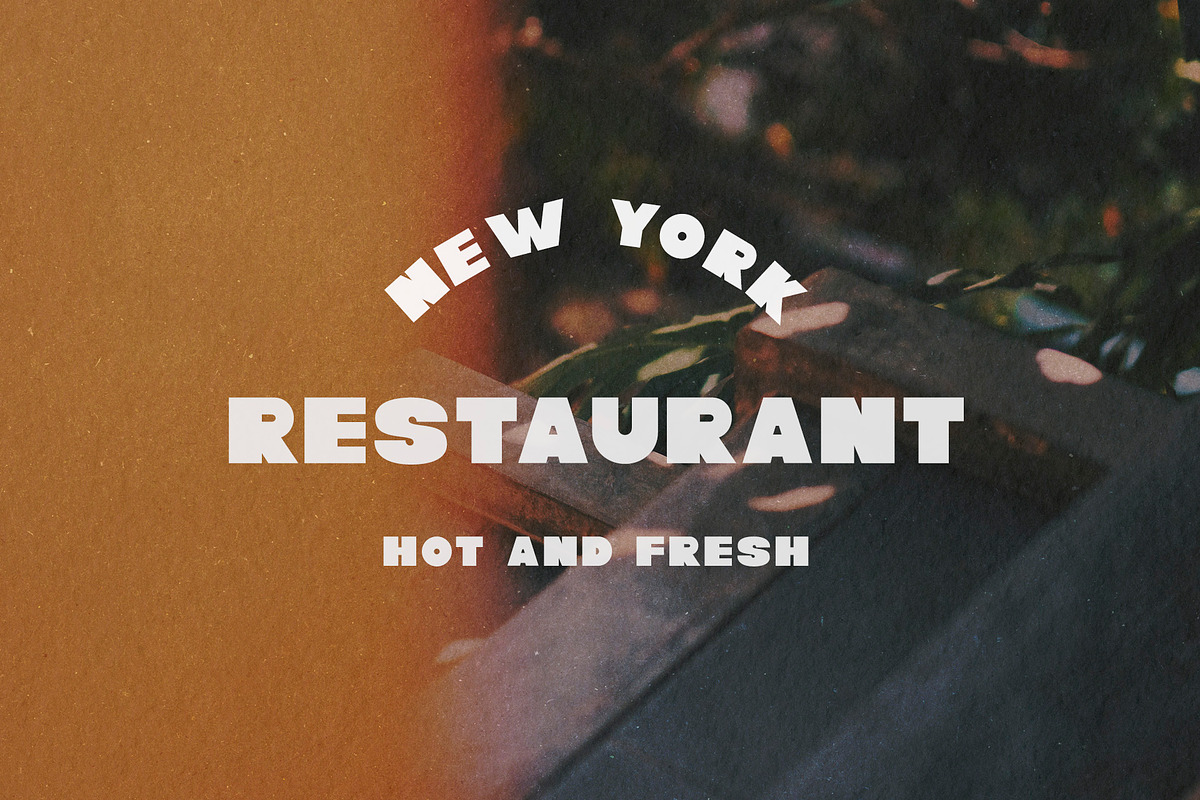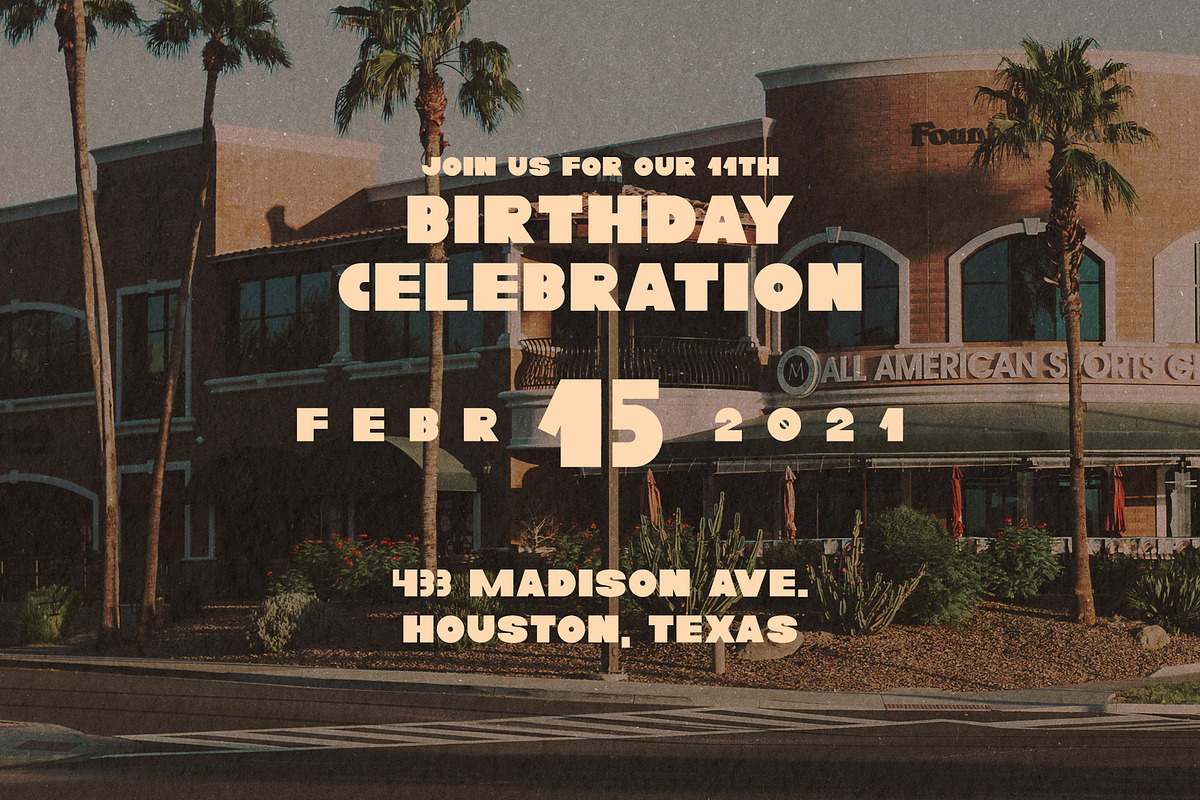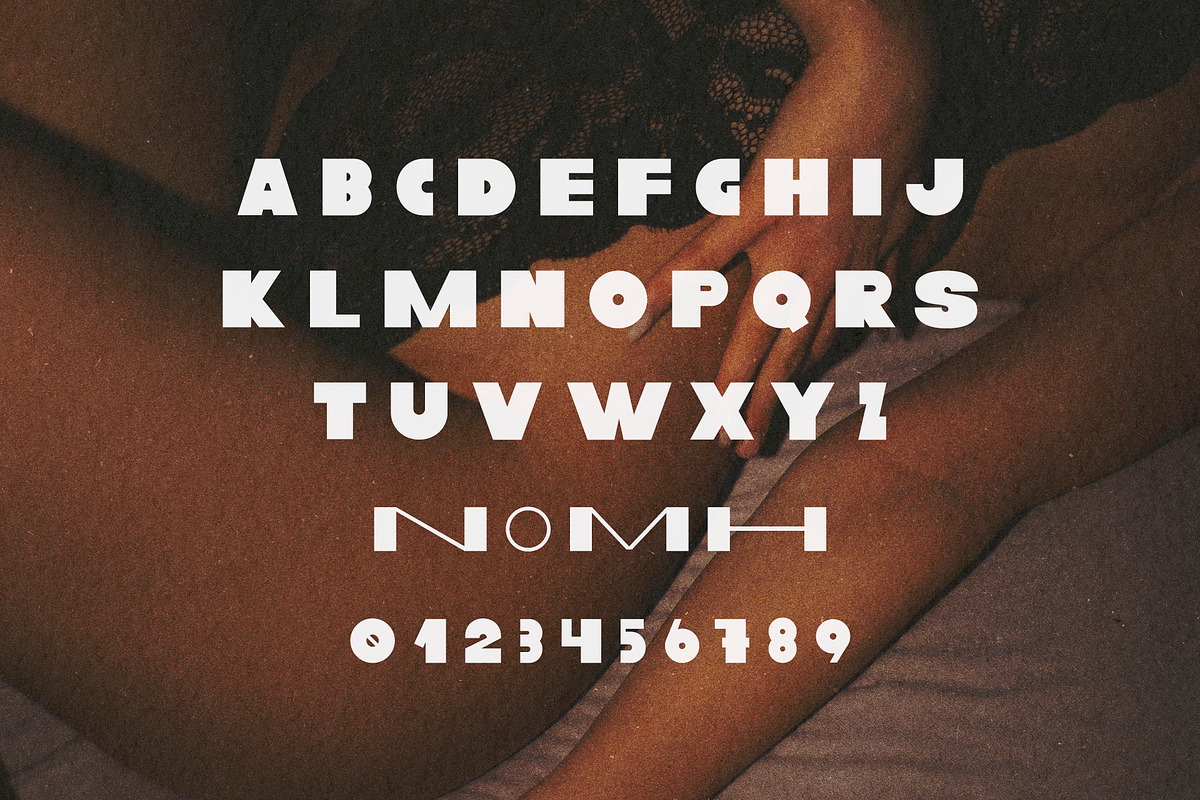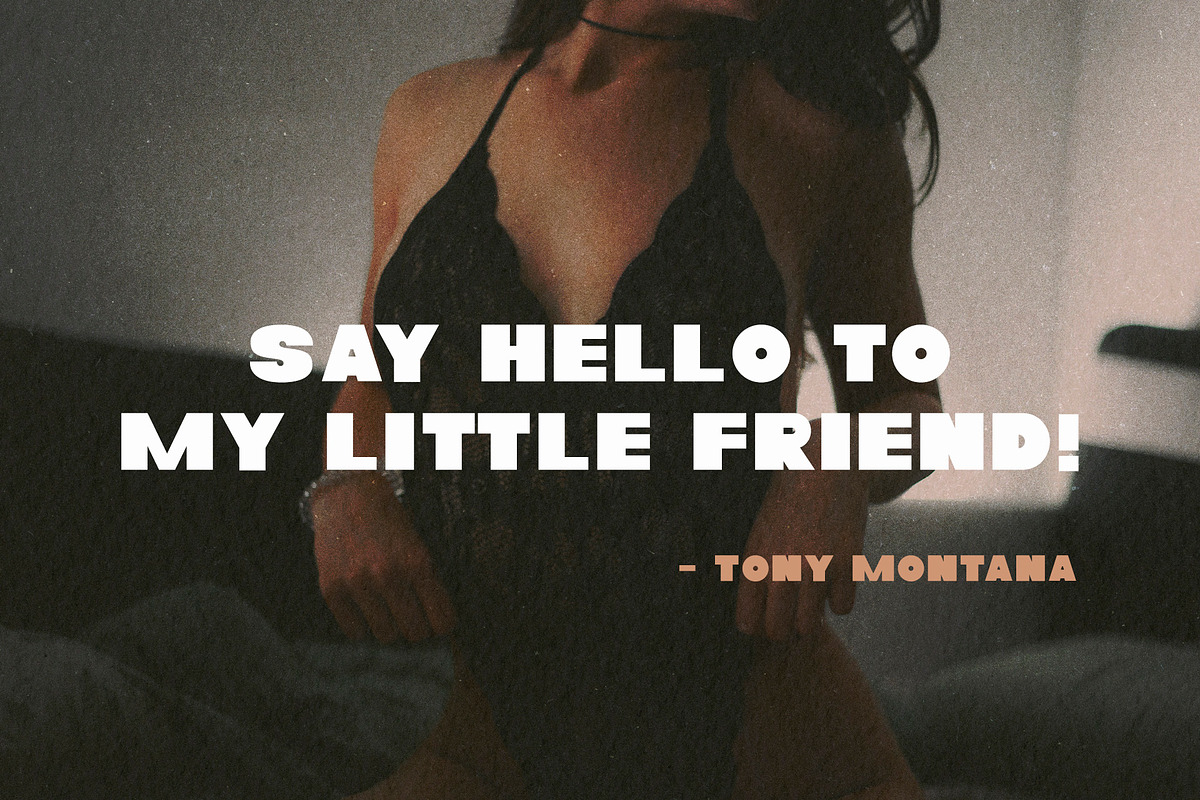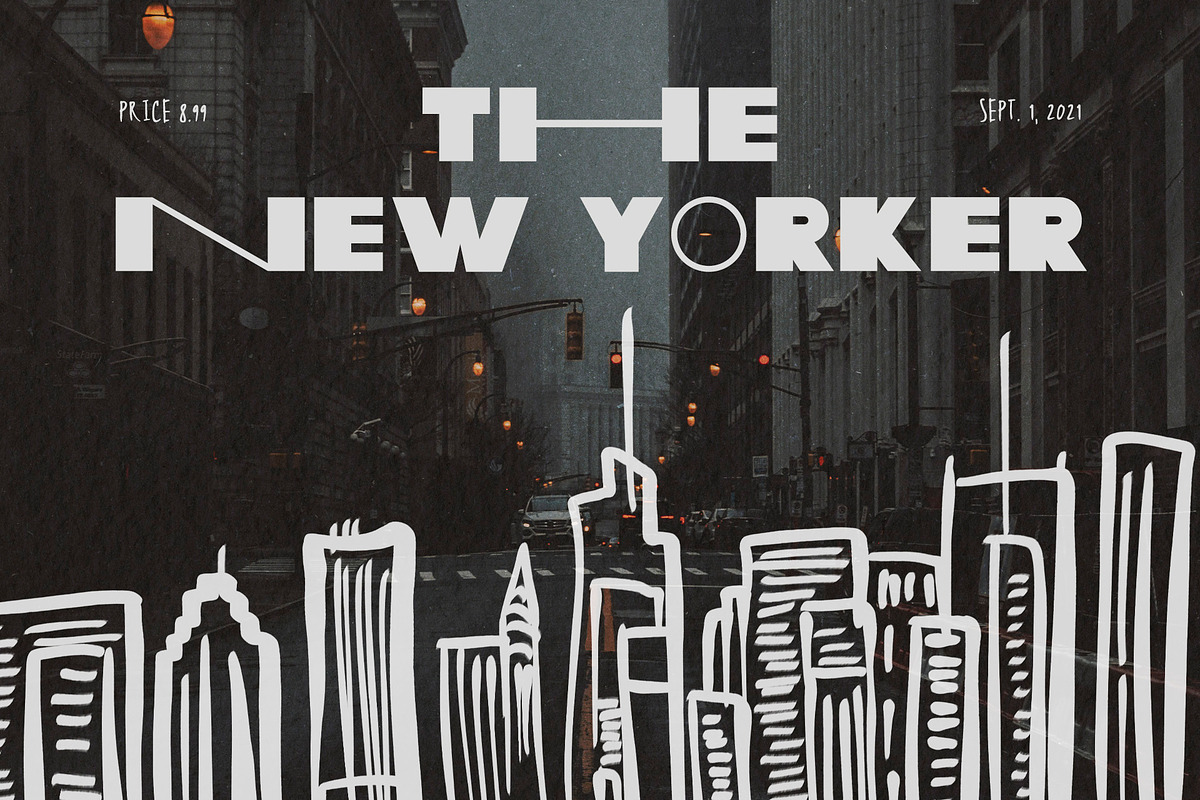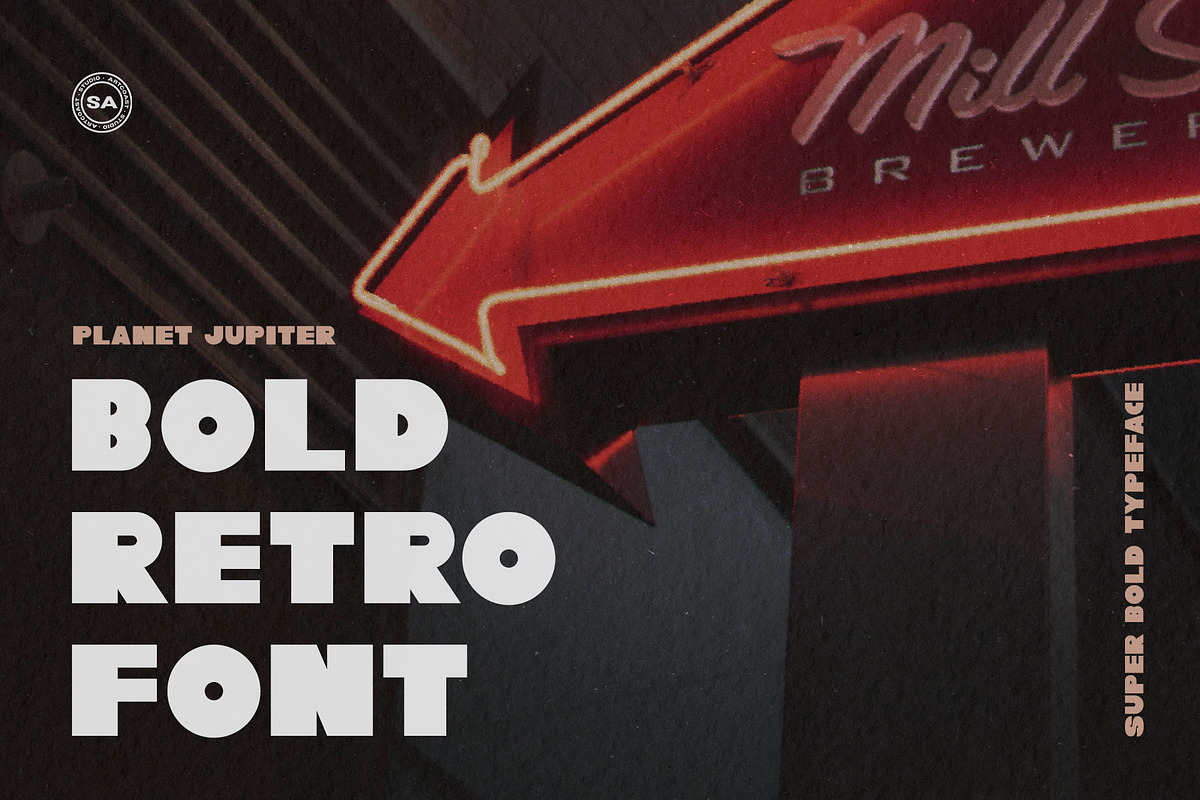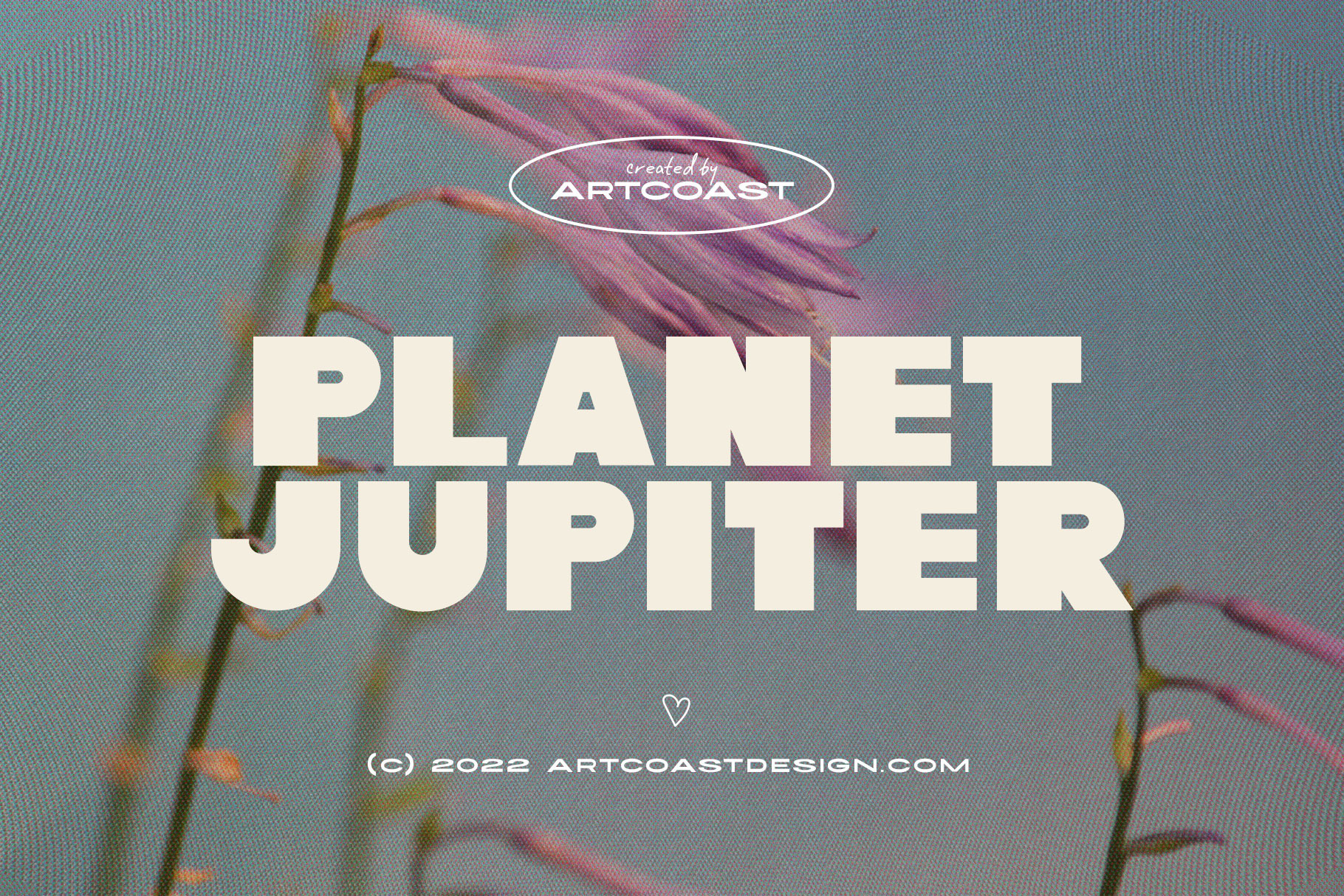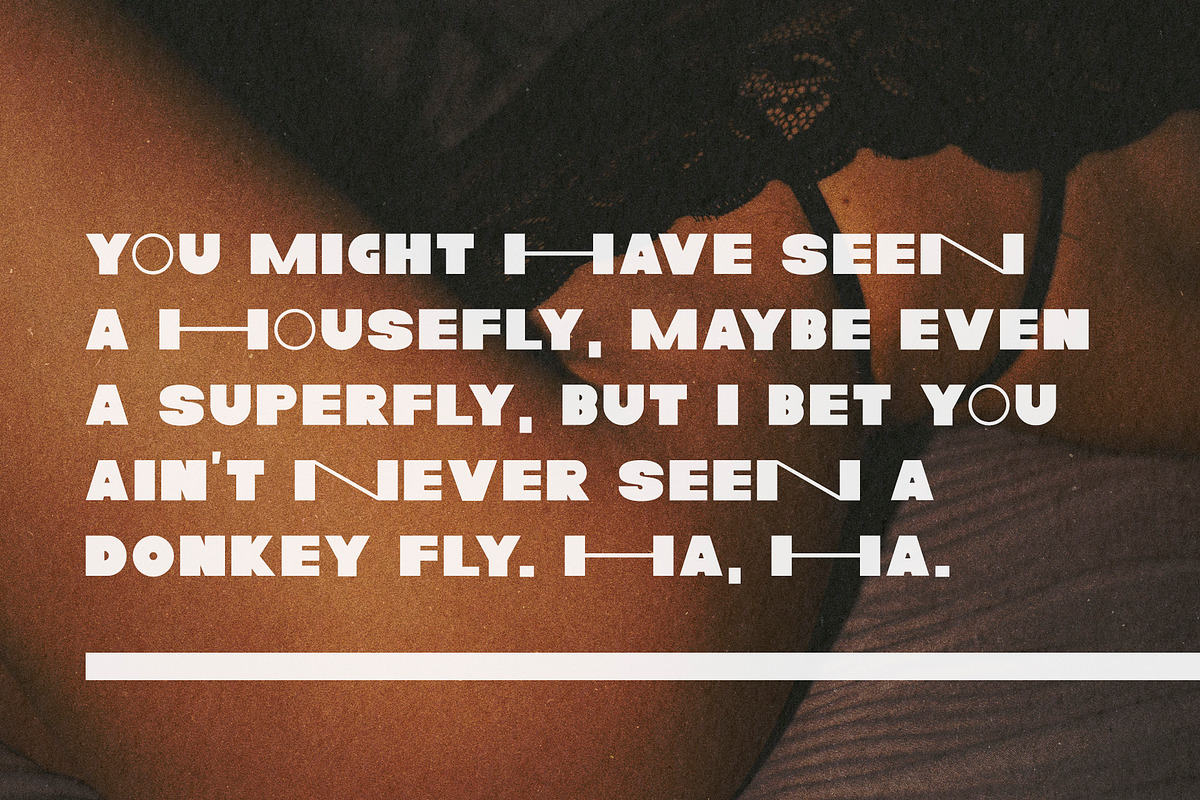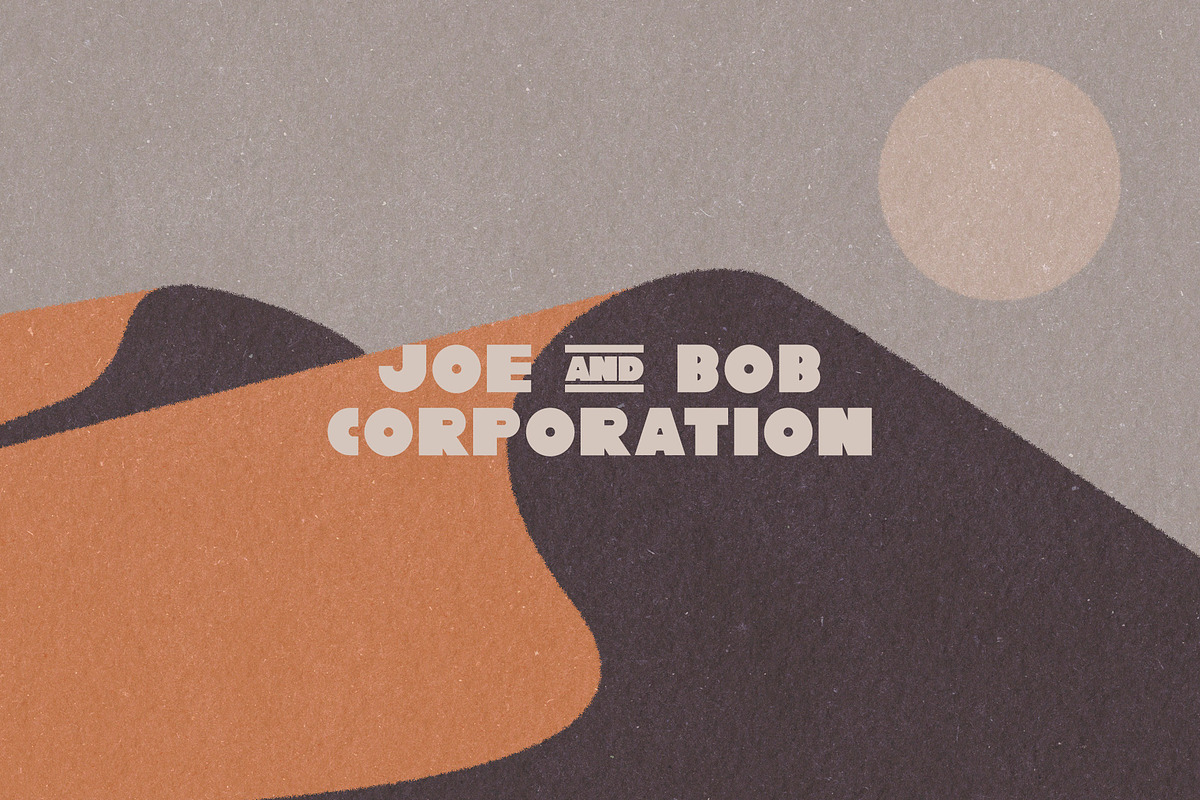
Planet Jupiter Bold Retro Font
Planet Jupiter is a bold retro display font with wide, blocky letterforms and distinctive alternate characters. Its confident shapes work especially well at large sizes, from posters and magazine covers to packaging, restaurant branding, event graphics, kids projects, and logos.
1 display style
Uppercase Latin alphabet
Numerals and punctuation
Alternative characters
BEST FOR
Posters and editorial headlines
Food packaging, menus, and labels
Logos, badges, and storefront graphics
Events, invitations, and playful branding
Use the alternate characters to vary repeated letters and give titles a custom, rhythmic look. Planet Jupiter combines a 1970s-inspired personality with clean, heavy construction for memorable layouts.